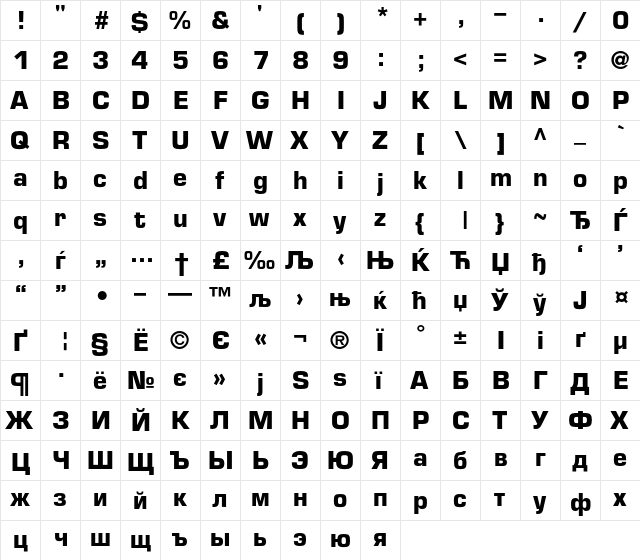
Europe Bold Font Preview
Europe Bold
Design Context for Europe Typeface
Europe is a composed and adaptable typeface that performs quietly and consistently across a wide range of design contexts. Its bold stroke weight gives it real presence on the page.